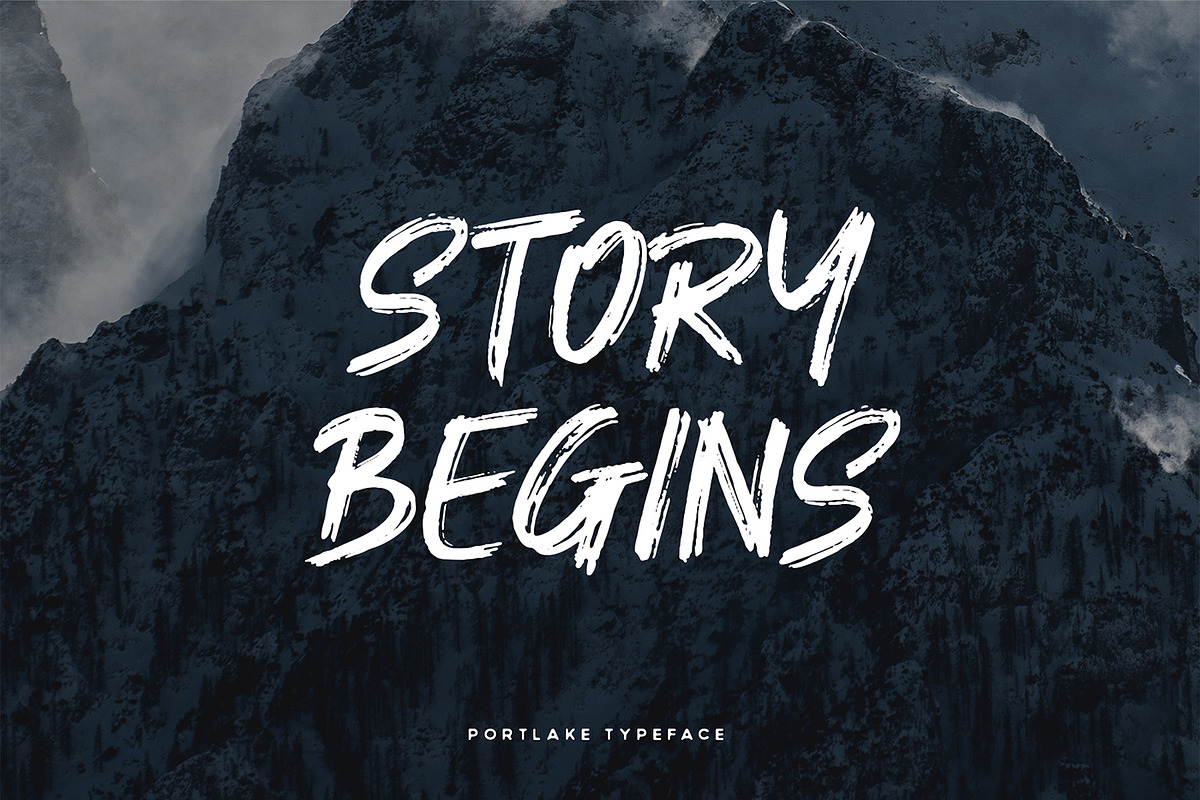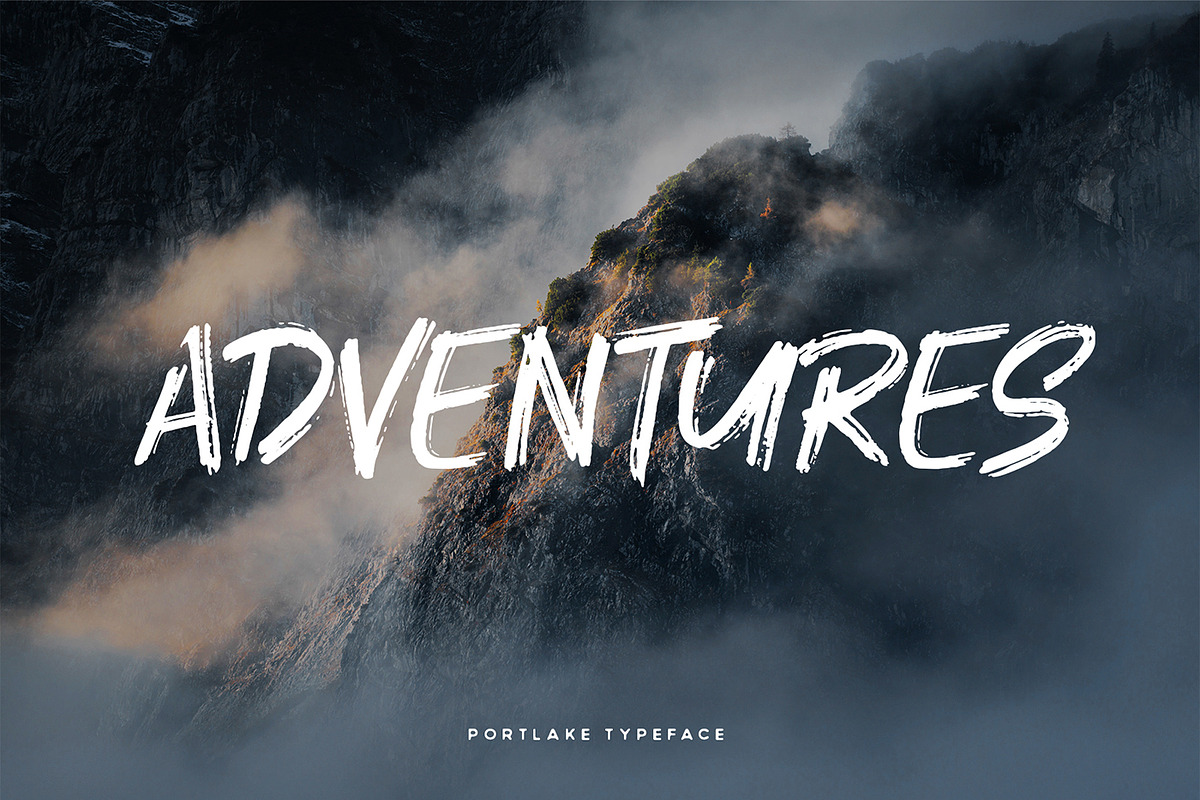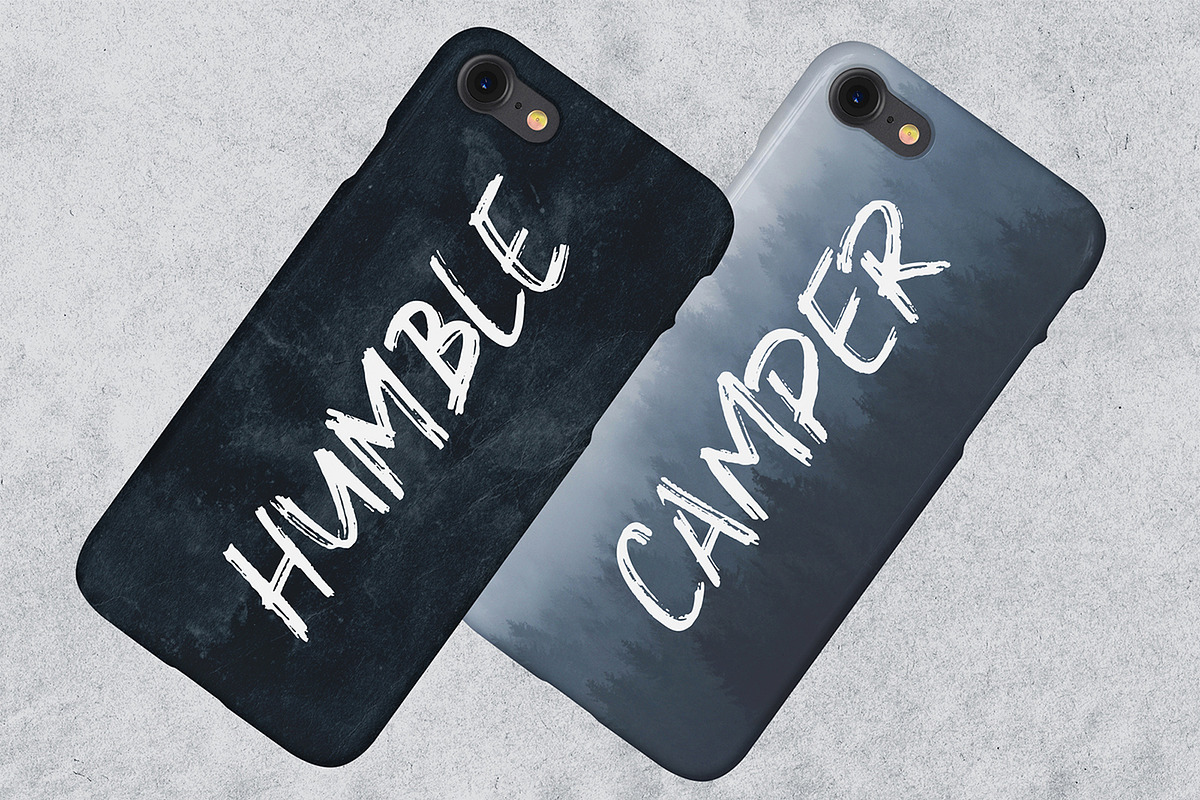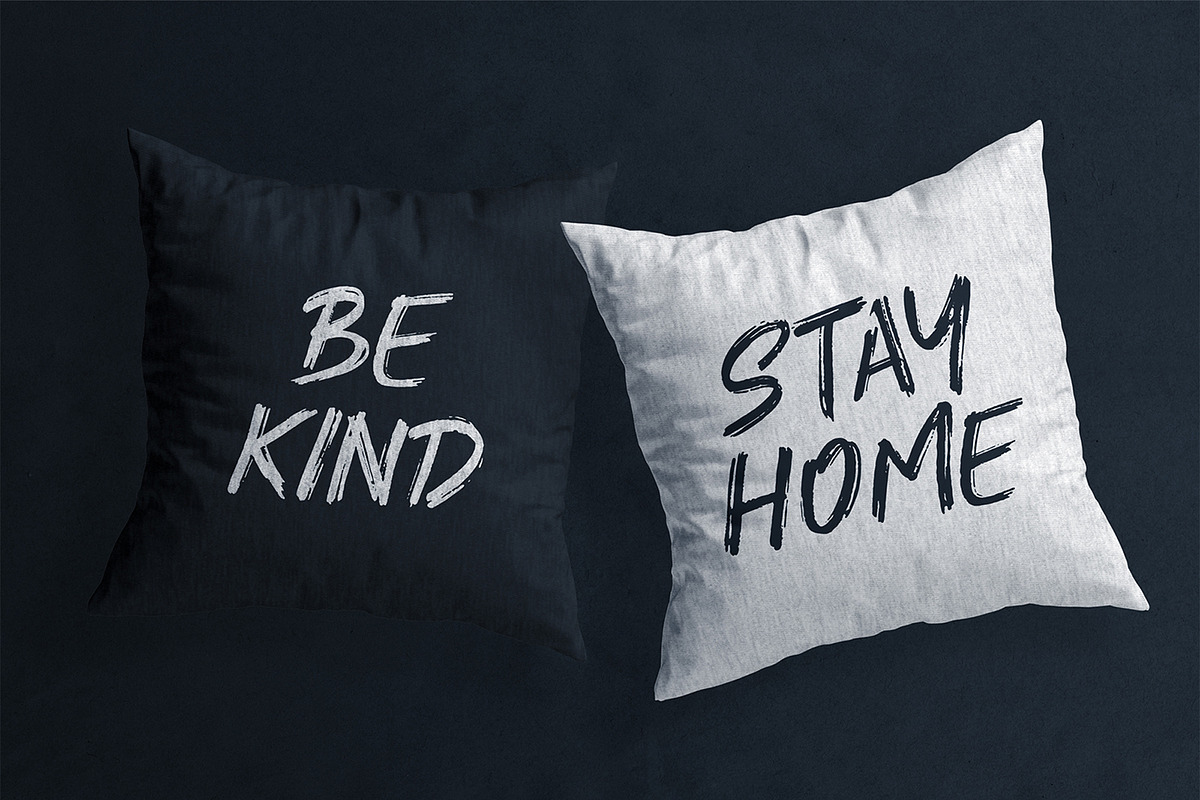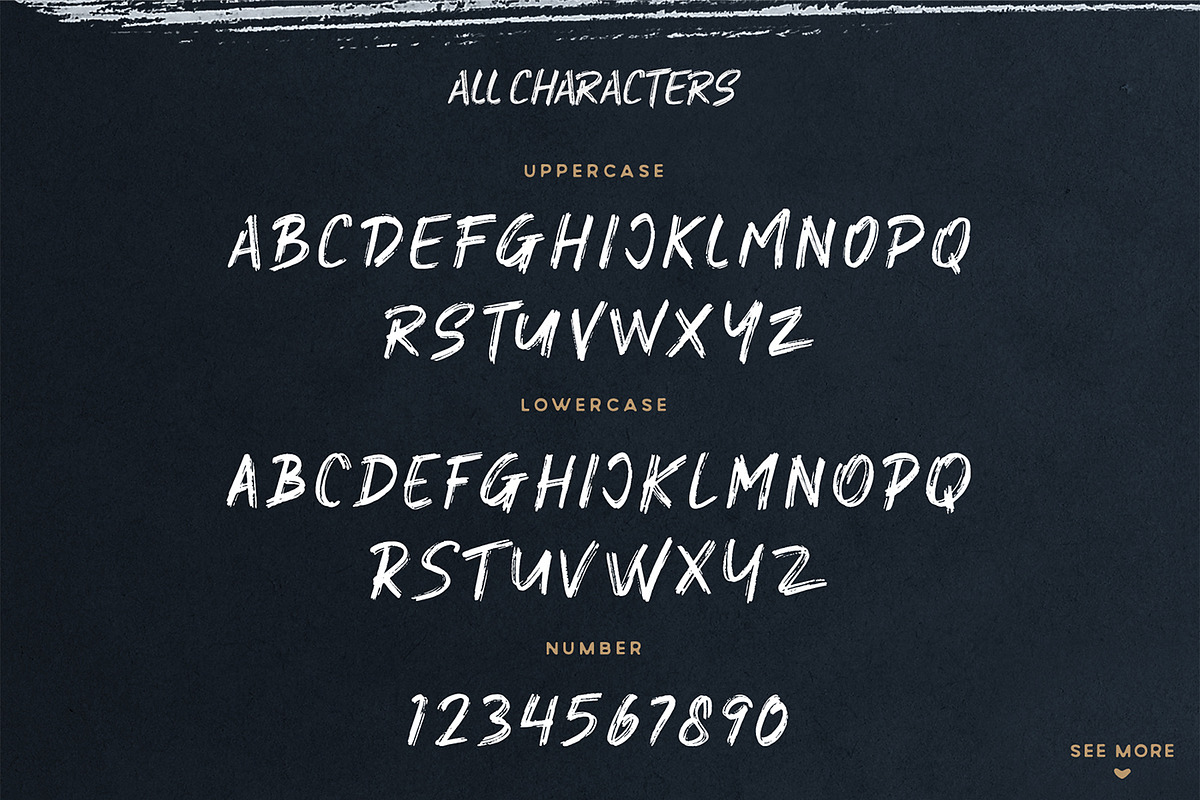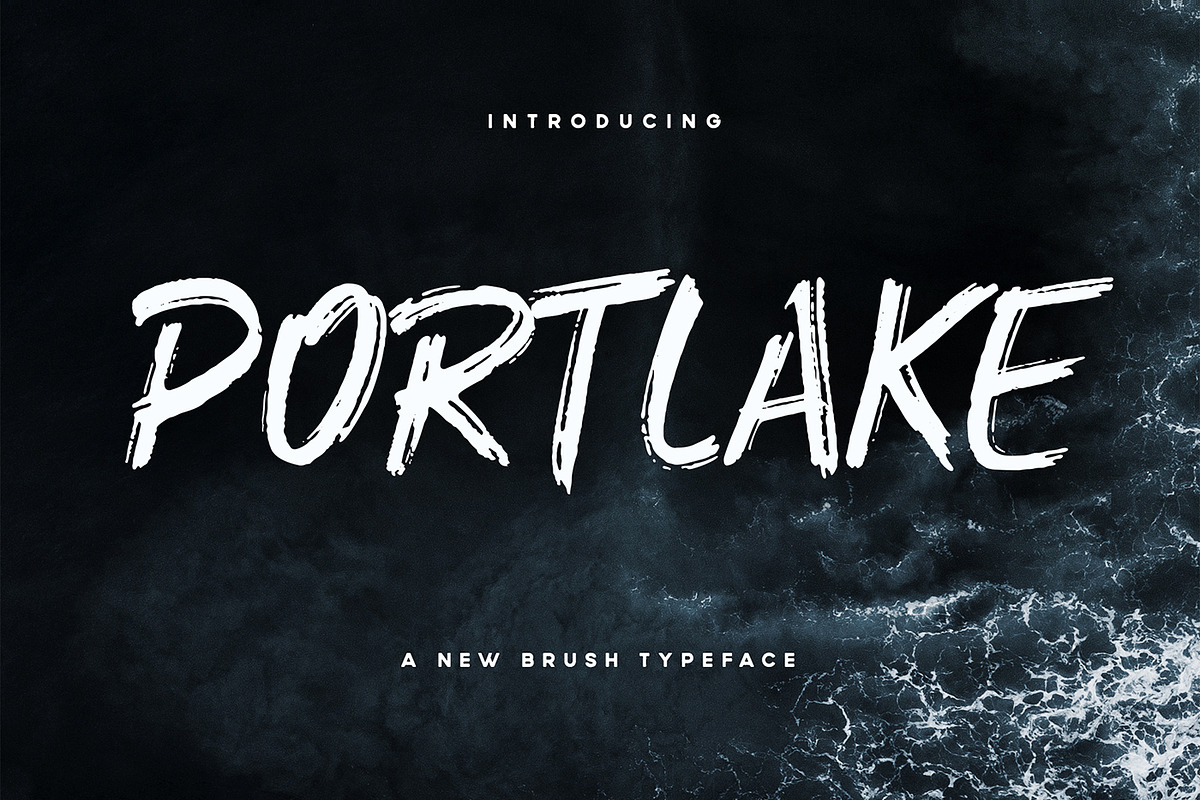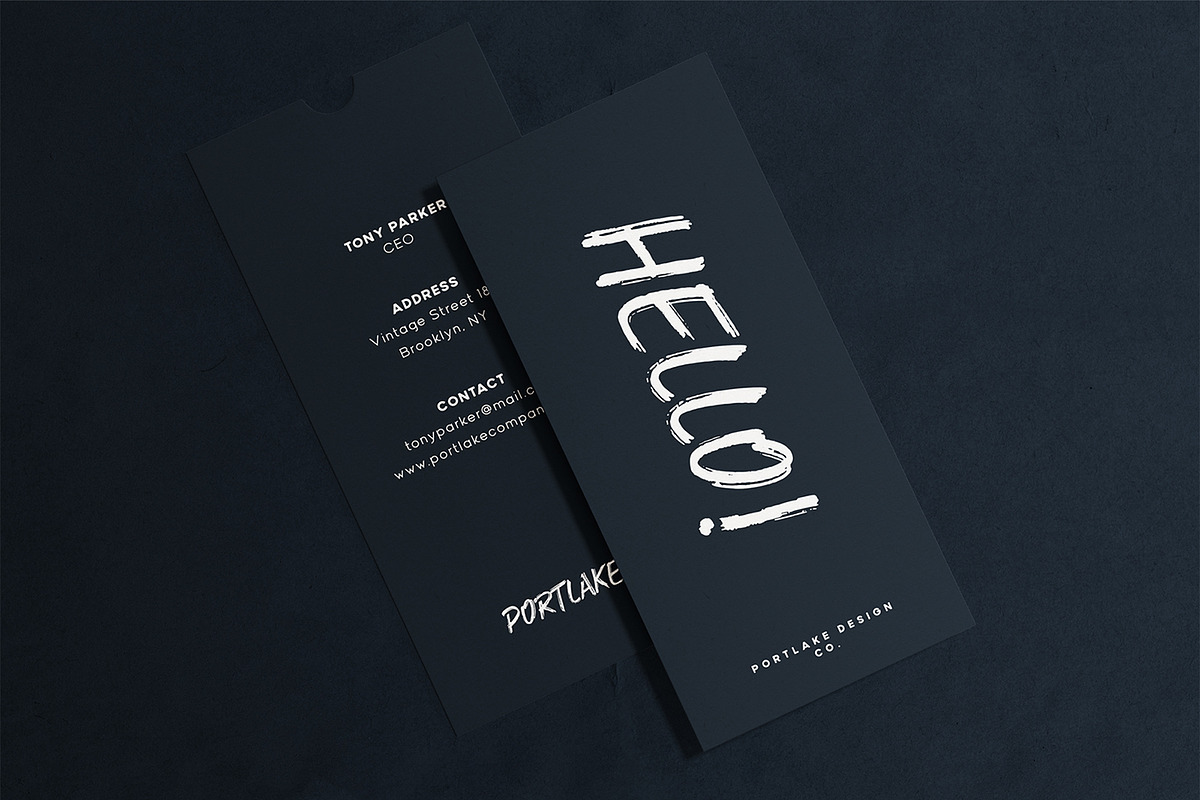
Portlake Brush Typeface
Portlake Brush Typeface is a hand crafted brush typeface. Portlake is all caps typeface with different version of uppercase and lowercase characters. The font support multilingual characters. For the styles itself Portlake come with two styles, one Regular and one Italic, so you have more options.
Portlake Brush Typeface suitable for any graphic designs such as branding materials, t-shirt, cover, thumbnail, print, business cards, logo, poster, t-shirt, photography, quotes .etc
Uppercase Character (CAPS)
Lowercase Character (CAPS)
International Language
- Portlake is all caps typeface with different version of uppercase and lowercase characters.
- The font support multilingual characters.
- Portlake Regular
- Portlake Italic
Portlake Brush Typeface by Wandery Supply fits naturally into Branding, posters, packaging, typography.